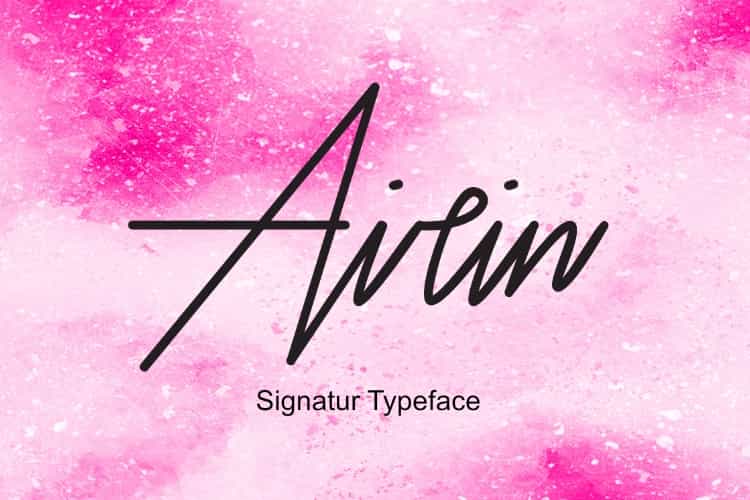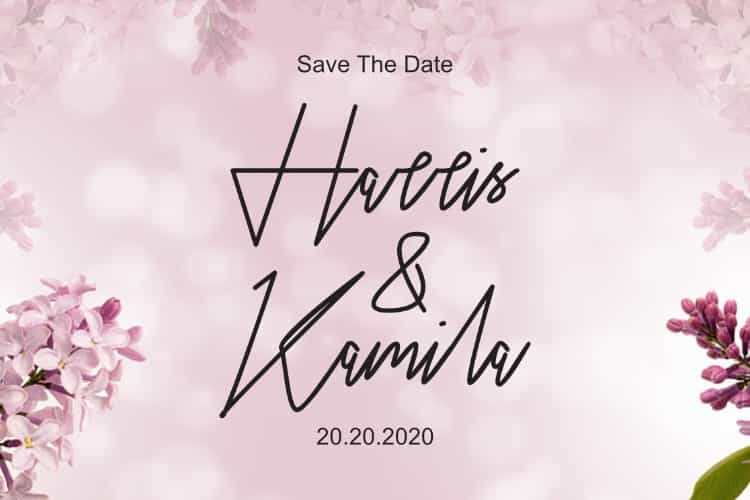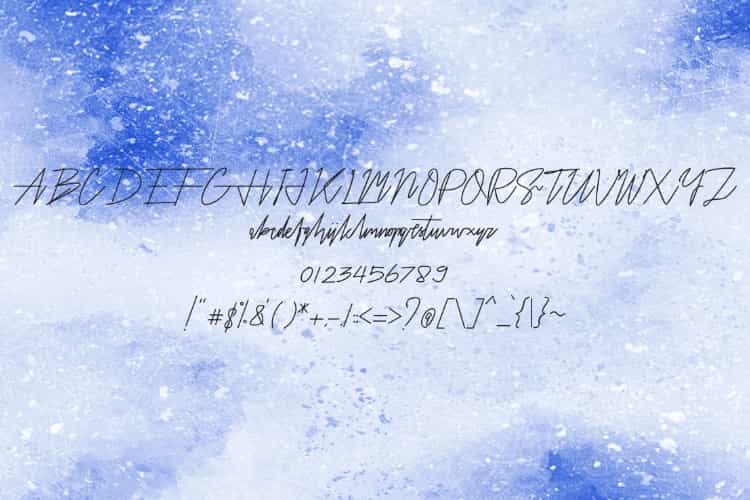
Discover Airin Font, part of the Handwritten Script Personal collection—a versatile and unique font perfect for adding a personal touch to your projects. Download it for free and enjoy crafting designs with style, from invitations to social media posts. This font is available exclusively for personal use, giving you the freedom to create without limits. Unlock your creativity with Airin Font today!
Airin Signature was done in monoline writing style with both straight and curved stroke which made the logo look different.